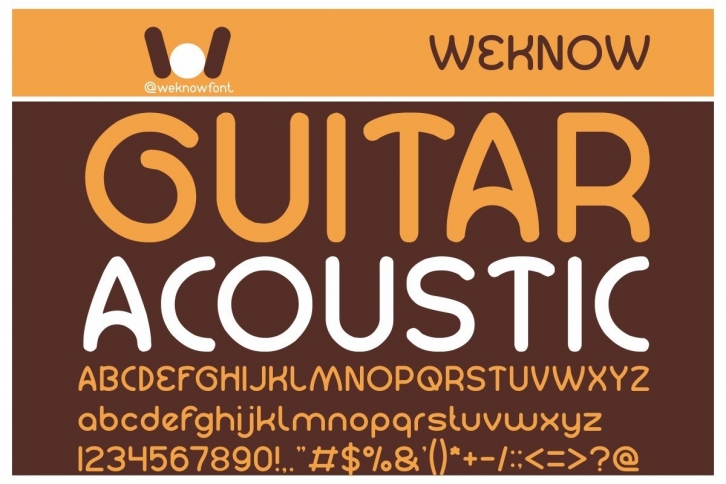
Guitar Acoustic is a cool and simple display font. It will fit perfectly on each of your designs.
Have fun with this beautiful font and explore its endless variations.